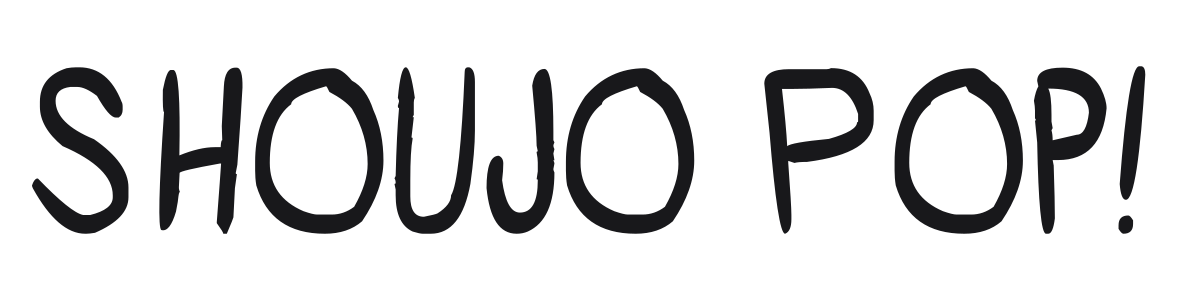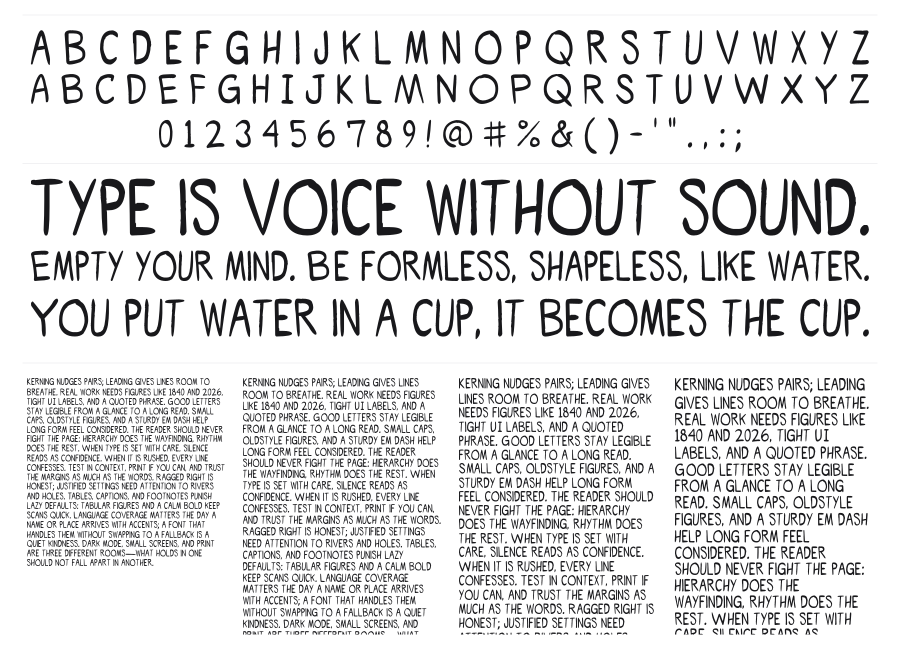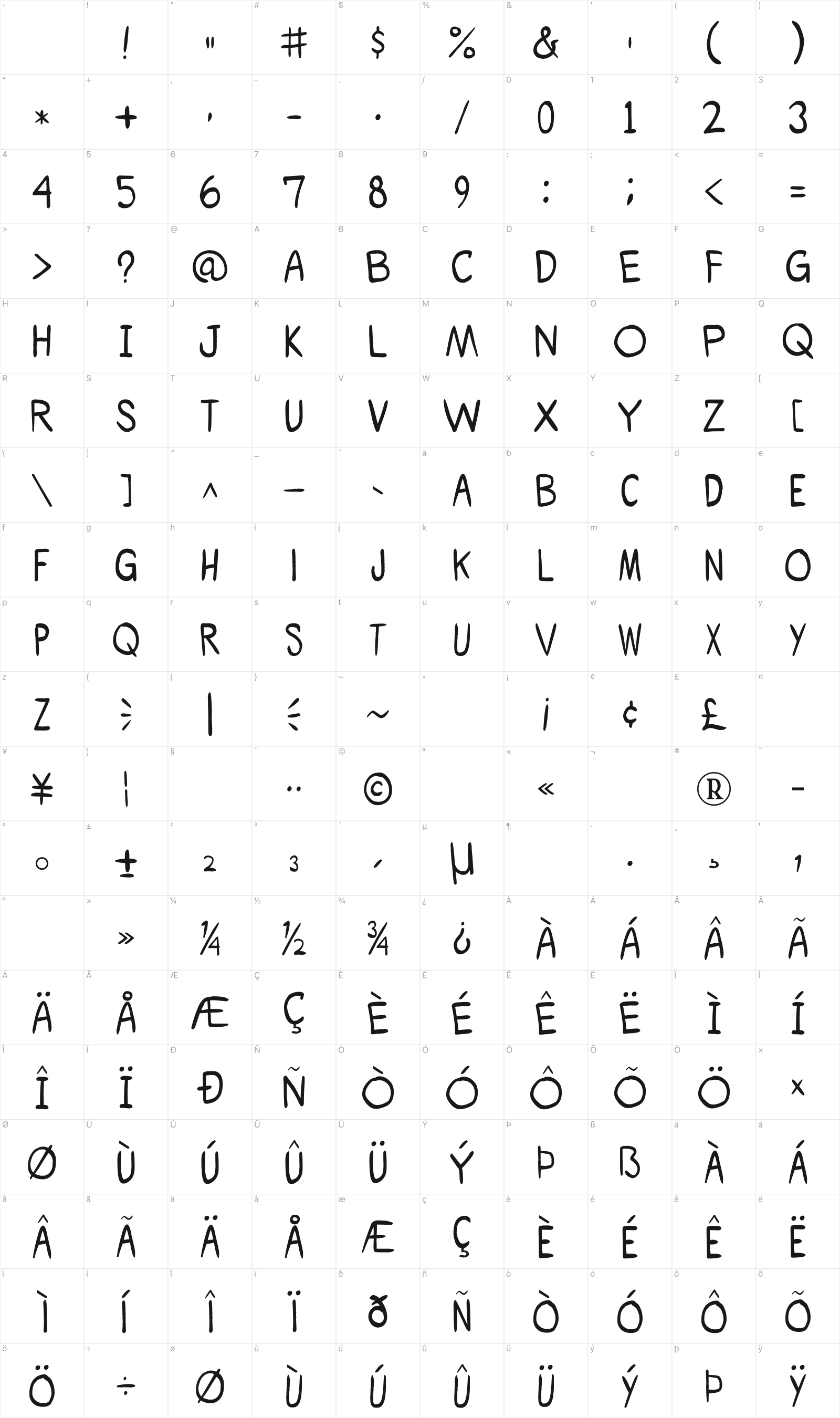
Shoujo Pop!
Shoujo Pop! is a bold, hand-drawn comic font inspired by the expressive lettering found in shoujo manga. Each character has a slightly irregular, organic quality that keeps it feeling lively rather than mechanical. Great for titles, covers, and any project that needs a playful, youthful punch.